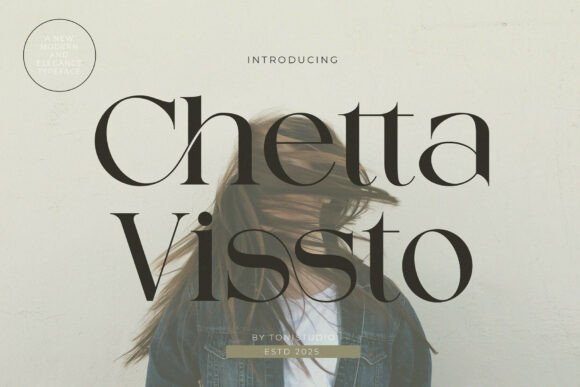
Introducing Chetta Vissto Font: The Epitome of Elegance and Luxury
In the world of typography, fonts play a crucial role in conveying the tone and personality of a brand. A well-crafted font can elevate a design from ordinary to extraordinary, making it a vital component of any creative project. If you’re looking for a font that exudes elegance, luxury, and sophistication, look no further than Chetta Vissto. This modern serif font is a masterful blend of classic and futuristic styles, making it perfect for premium branding, fashion logos, magazine editorials, and even wedding invitations.
The Unique Characteristics of Chetta Vissto
Chetta Vissto is a modern serif font that boasts a unique combination of classic and futuristic elements. Its smooth curves and beautiful, thin contrast give it a timeless and sophisticated feel, making it perfect for designs that require a touch of elegance and luxury. The font’s classic feel is balanced by its futuristic, visionary style, which adds a sense of innovation and forward-thinking to any design.
One of the standout features of Chetta Vissto is its versatility. The font is designed to work seamlessly across a range of design applications, from branding and advertising to editorial design and wedding invitations. Whether you’re looking to create a stunning display or a elegant text-based design, Chetta Vissto is the perfect choice.
The Benefits of Using Chetta Vissto
So why choose Chetta Vissto over other fonts? Here are just a few benefits of using this exceptional font:
- Elegance and Luxury: Chetta Vissto exudes elegance and luxury, making it perfect for high-end branding and design projects.
- Versatility: The font is designed to work seamlessly across a range of design applications, from branding and advertising to editorial design and wedding invitations.
- Timeless Sophistication: Chetta Vissto’s classic feel and futuristic style combine to create a timeless and sophisticated typography that will never go out of style.
- Easy to Use: The font is PUA-encoded, ensuring effortless access to all glyphs, swashes, and alternate characters to help you customize your creations with ease.
Design Applications for Chetta Vissto
Chetta Vissto is a versatile font that can be used in a wide range of design applications, including:
- Premium Branding: Use Chetta Vissto to create stunning logos and branding materials that exude elegance and luxury.
- Fashion Logos: The font’s classic feel and futuristic style make it perfect for fashion logos that require a touch of sophistication and glamour.
- Magazine Editorials: Chetta Vissto is ideal for magazine editorials that require a elegant and sophisticated typography.
- Wedding Invitations: Use Chetta Vissto to create beautiful and elegant wedding invitations that will set the tone for a special day.
The Technical Details of Chetta Vissto
Chetta Vissto is a technically advanced font that has been designed with the needs of modern designers in mind. Here are some of the technical details of the font:
- PUA-Encoding: The font is PUA-encoded, ensuring effortless access to all glyphs, swashes, and alternate characters to help you customize your creations with ease.
- Character Set: Chetta Vissto includes a wide range of characters, including uppercase and lowercase letters, numbers, and punctuation marks.
- Glyphs and Swashes: The font includes a range of glyphs and swashes that can be used to add a touch of elegance and sophistication to your designs.
In conclusion, Chetta Vissto is a modern serif font that offers a unique combination of elegance, luxury, and sophistication. Its versatility, timeless sophistication, and ease of use make it perfect for a wide range of design applications, from premium branding and fashion logos to magazine editorials and wedding invitations. If you’re looking for a font that will elevate your designs to the next level, look no further than Chetta Vissto.